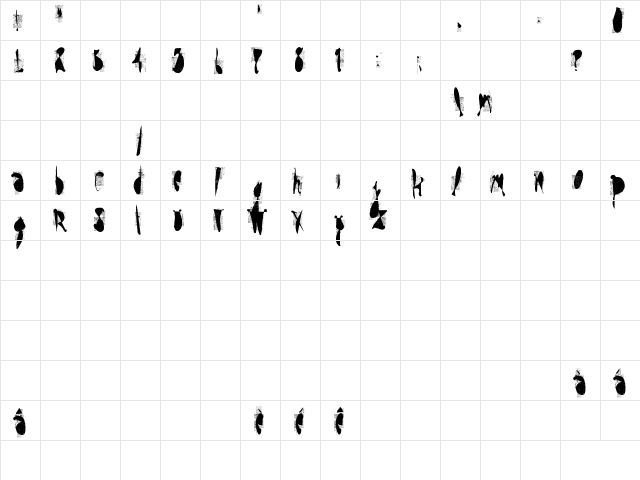
moskito screen Regular
Design Context for moskito screen Typeface
moskito screen is a composed and adaptable typeface that performs quietly and consistently across a wide range of design contexts.